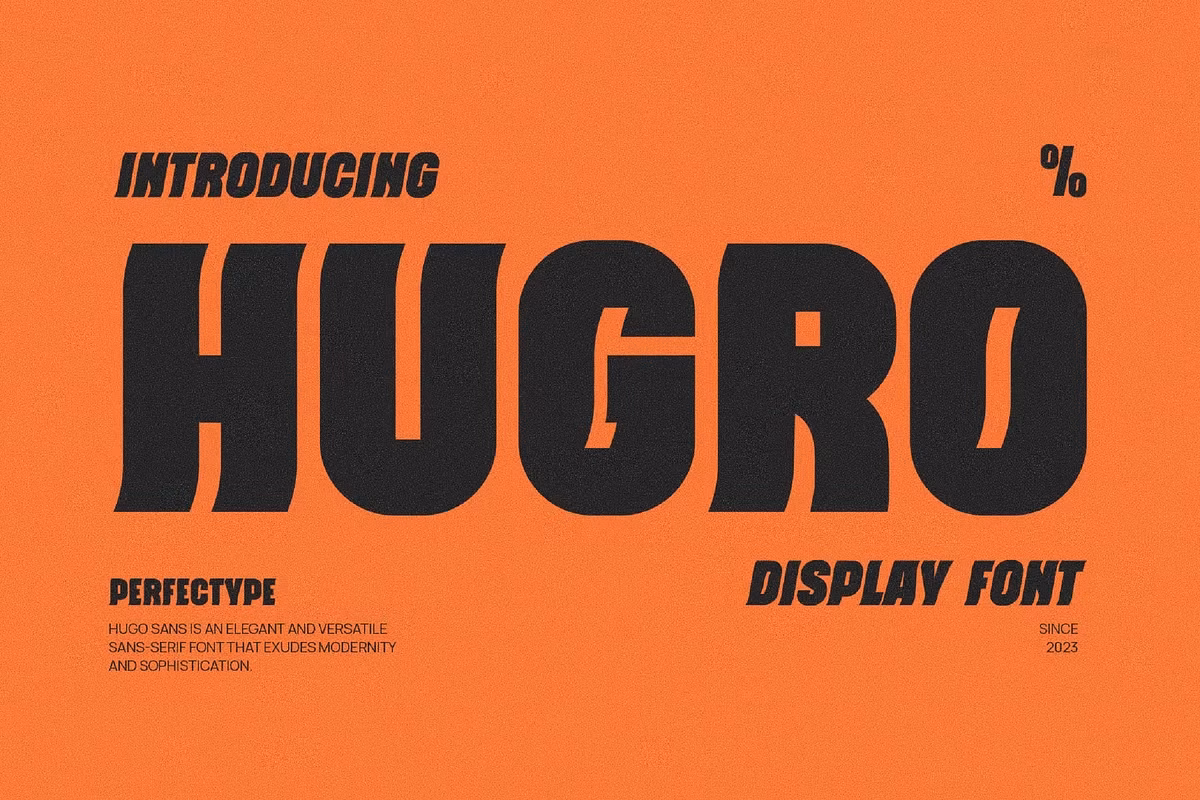
Hugro Modern Futuristic Sans Serif Font Free Download is a sleek and contemporary typeface designed with a futuristic edge. Featuring clean, geometric letterforms and a minimalistic design, this font is perfect for tech-related branding, digital interfaces, logos, headlines, and other modern design projects.
With its sharp lines and modern aesthetic, Hugro adds a high-tech, polished feel to your typography while ensuring readability. Whether you're designing a cutting-edge website, a sci-fi poster, or a modern tech product logo, Hugro provides the perfect foundation for a futuristic and stylish look.